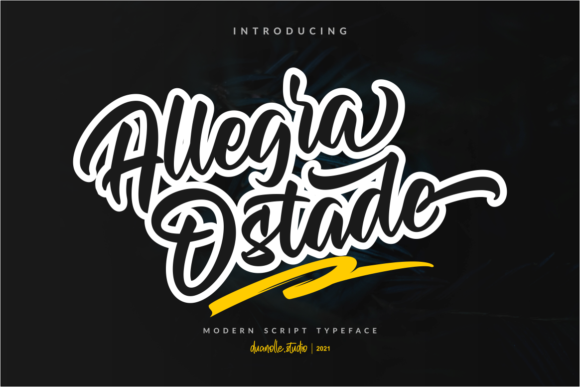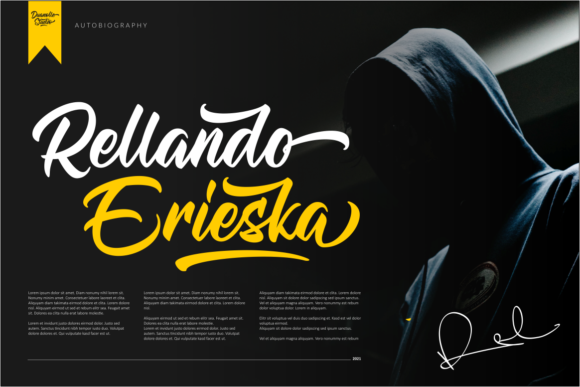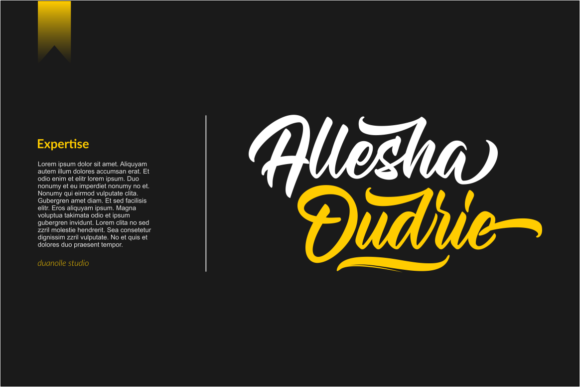
Allegra Ostade Font
Allegra Ostade FontAllegra Ostade is a modern script font. Use it to make your ideas even more realistic and create spectacular designs!
This font is PUA encoded which means you can access all of the glyphs and swashes with ease!